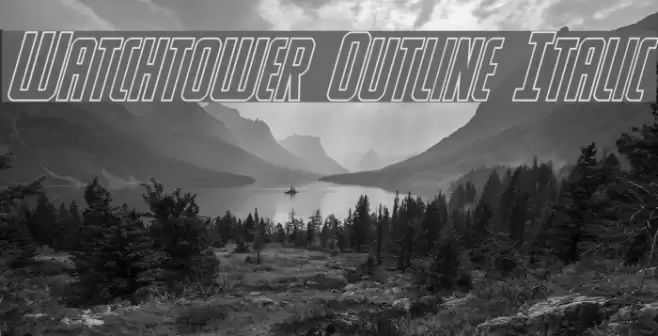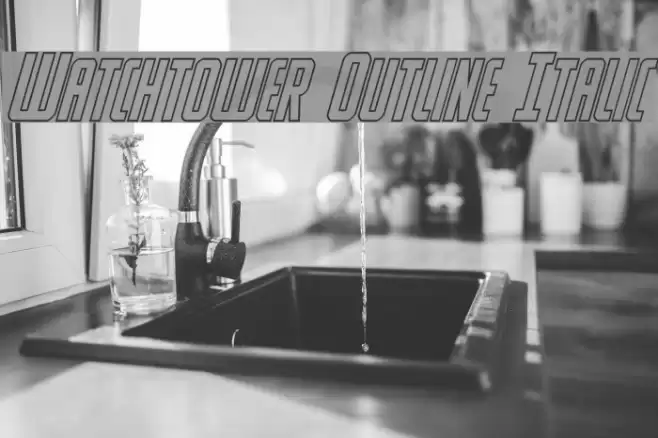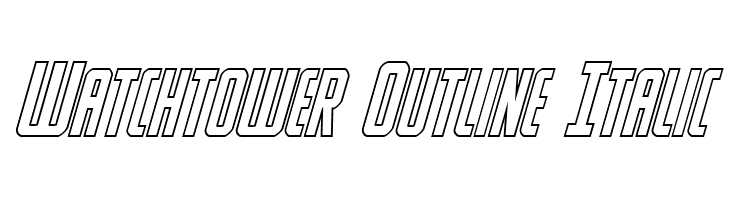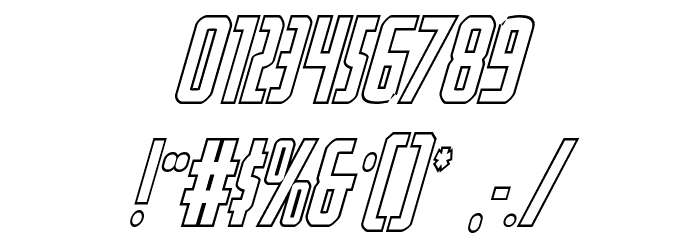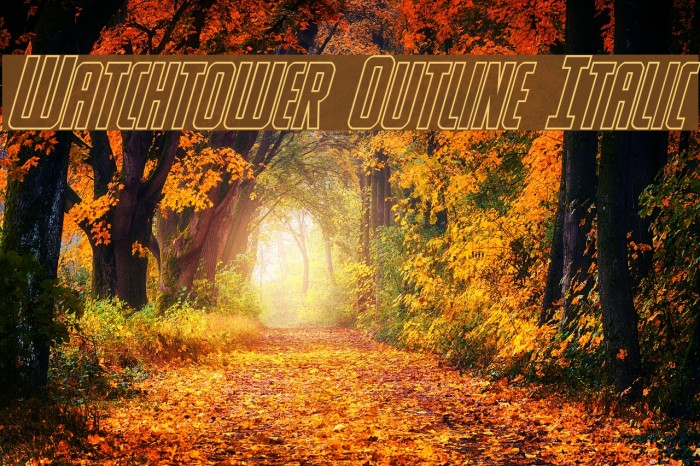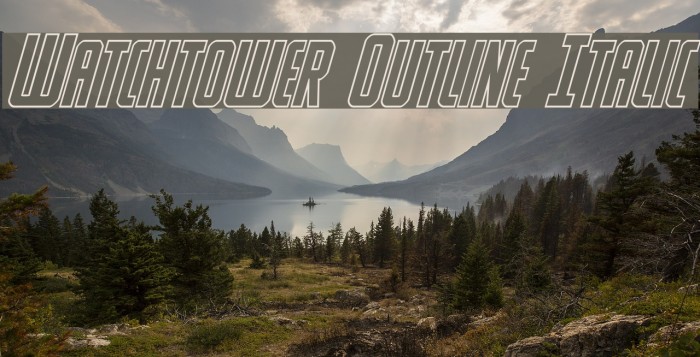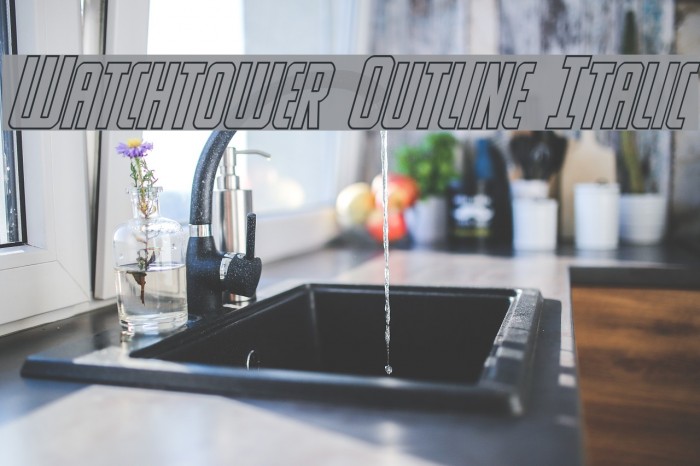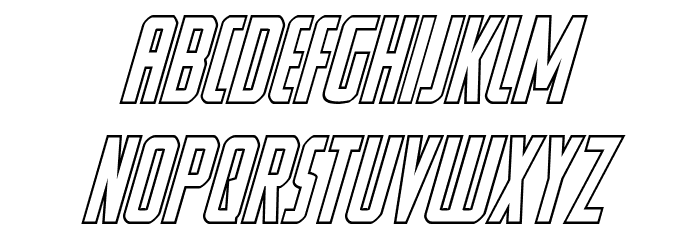
Watchtower Outline Italic
This font features a bold, italicized outline style that gives it a dynamic and modern appearance. The characters are uppercase and have a distinct slant, enhancing their forward-moving aesthetic. The outline design adds a sense of depth and dimension, making the letters stand out prominently. The font maintains a consistent stroke width throughout, contributing to its clean and structured look. Its geometric shapes and sharp angles provide a futuristic feel, while the italicization adds a touch of elegance and speed. The spacing between characters is tight, which helps in maintaining a cohesive and compact appearance. This font is versatile and can be used effectively in various design contexts where a bold and eye-catching typeface is required.
A bold, italicized outline font with a modern and dynamic style.
- Proposed Projects: Ideal for use in branding, posters, headlines, and any design requiring a striking and modern typeface.
- Character Spacing: Tight
- Use Case: Headlines, Logos, Posters